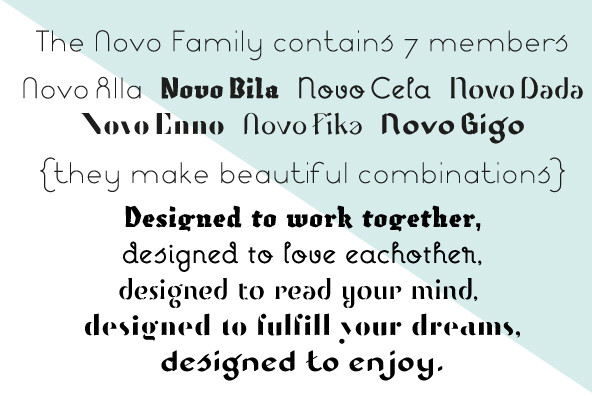
Novo Family
An unordinary type of family: Novo Alla is part of the Novo Family (together with Novo Alla, Bila, Cela, Dada, Fika and Gigo). Allthough all members are also strong individuals, Novo Family is an exclusive selection which allows you to design beautiful typographic combinations. The Novo Family will take typography into a next fase of legibility.Novo Family contains 7 members.